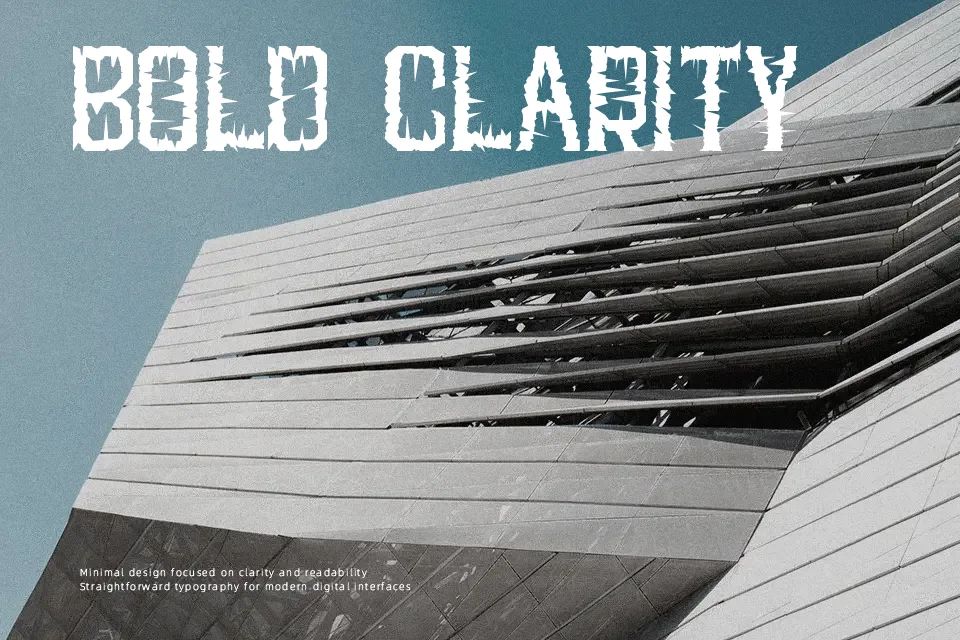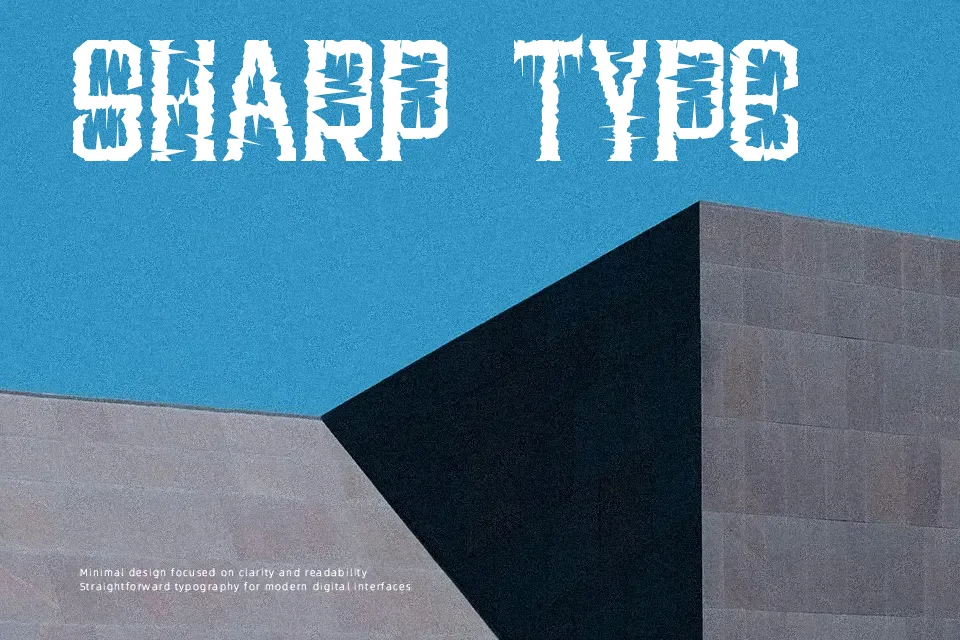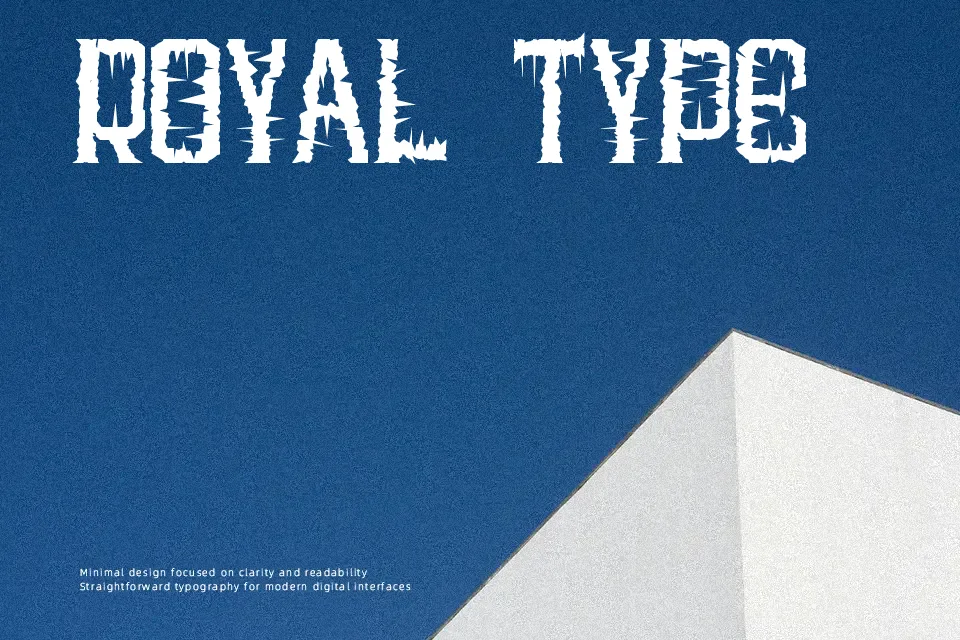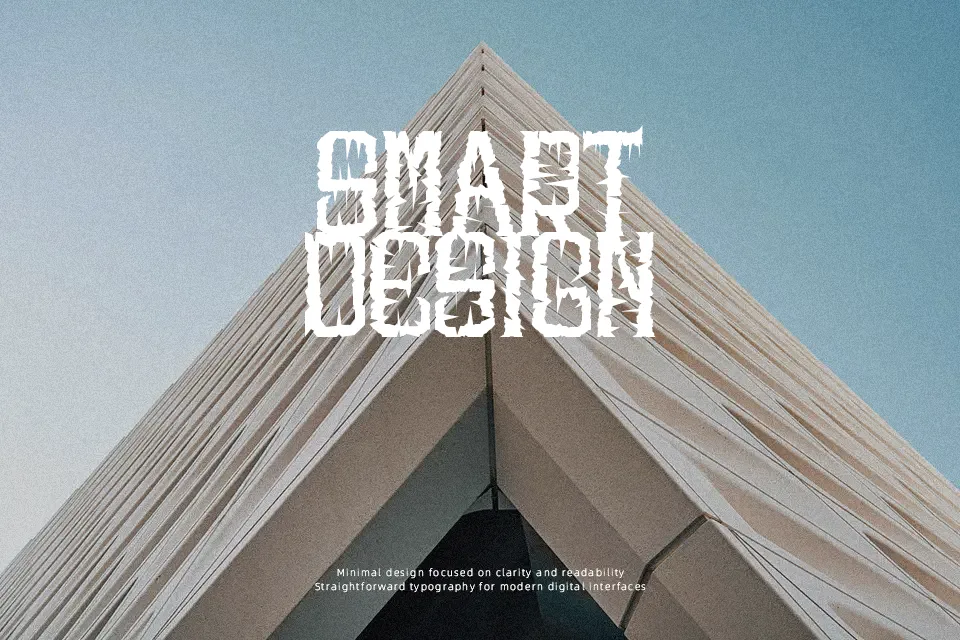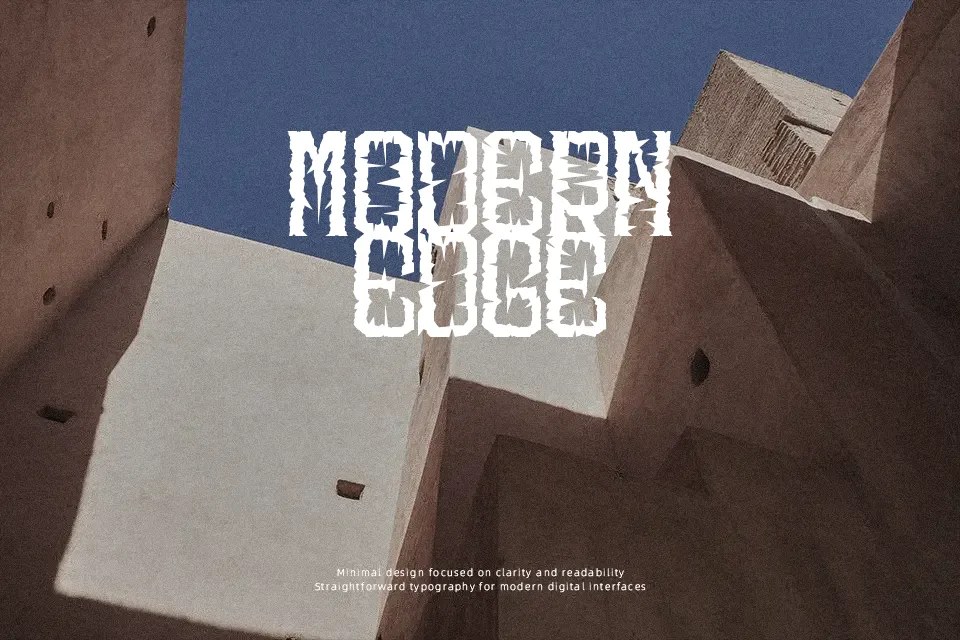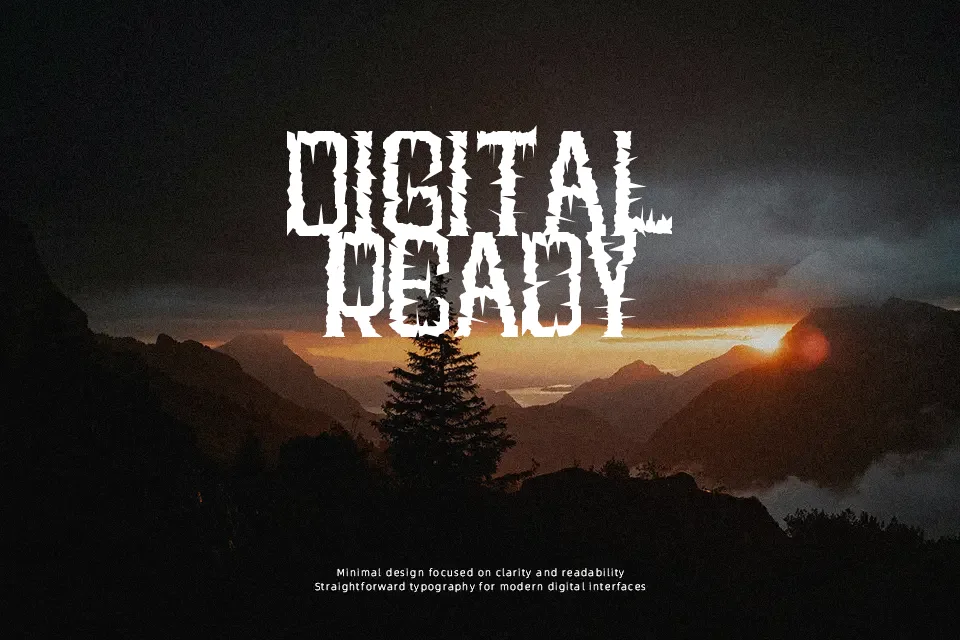
No Help Font
No Help Font works best as a large-scale display face, using heavy, uneven letterforms with pointed edges and distressed-looking contours. The all-capital construction creates a forceful, compact rhythm, while the irregular strokes give individual characters a deliberately unstable appearance. Spacing appears most effective in short words and separated headline lines, where the forms have room to remain distinct. It fits Halloween event artwork, dark packaging, and horror title treatments. The dramatic shapes provide strong visual presence in posters, but their rough details become harder to read in small text or long passages.
Best For: halloween event posters,horror film titles,dark apparel graphics,seasonal social media headlines
Not Ideal For: long paragraph text,small interface labels,corporate reports,technical manuals
Perfect for film, halloween, and headline, with a dark and decorative style.